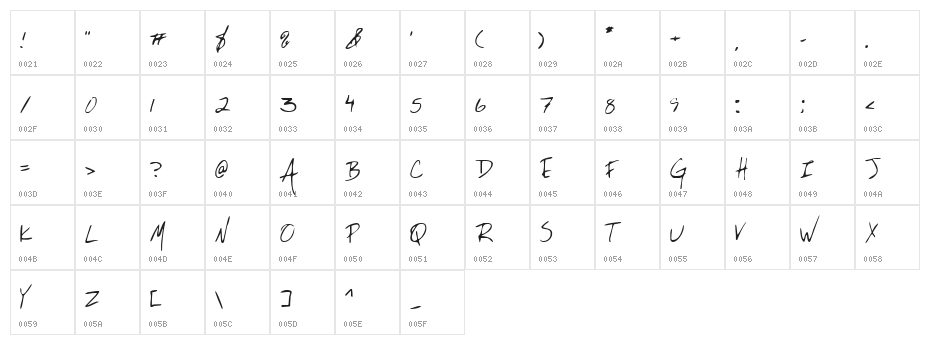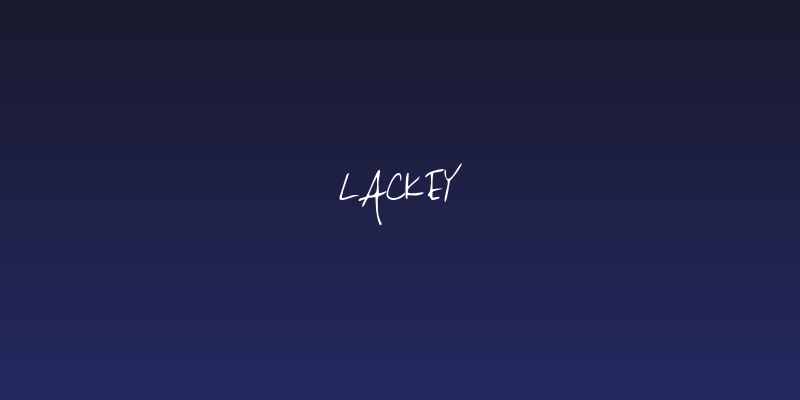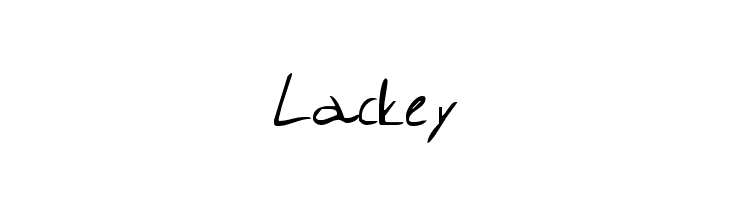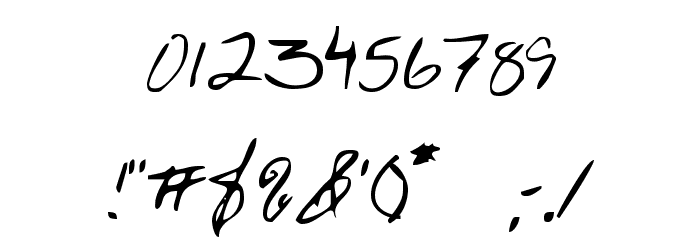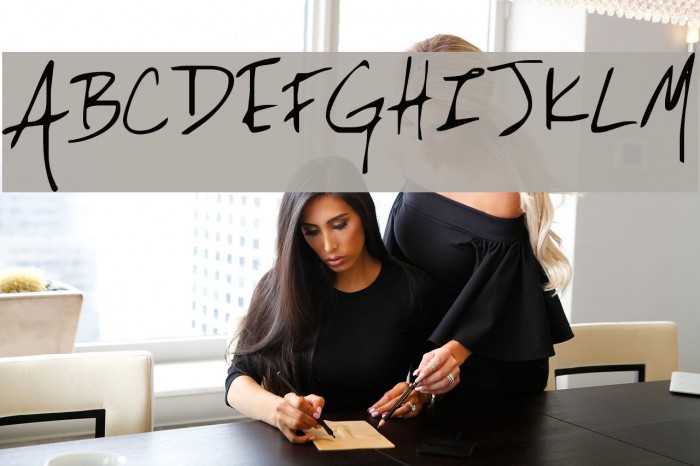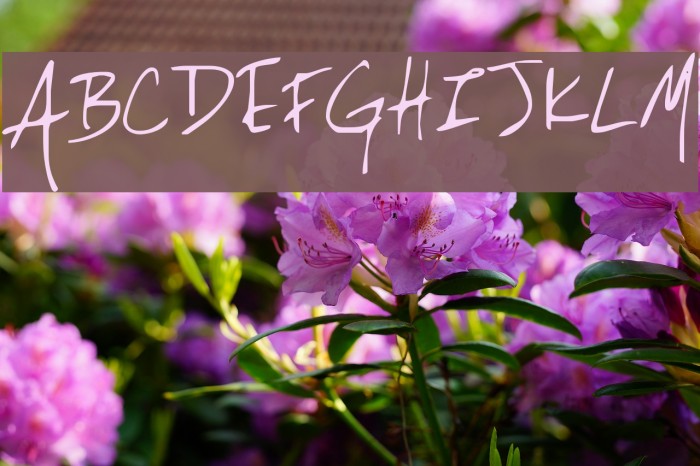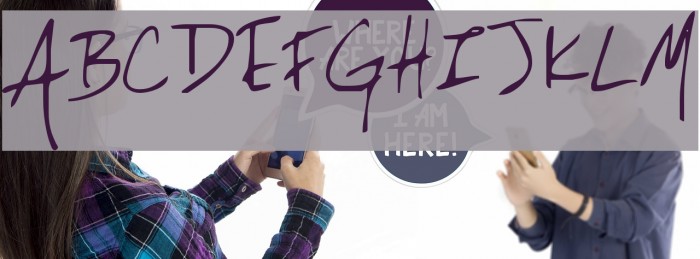
Lackey Font
Lackey Description
This font exhibits a dynamic and expressive handwritten style, characterized by its fluid and slightly irregular strokes. The uppercase letters are bold and prominent, with a playful yet sophisticated flair. The lowercase letters maintain a consistent flow, enhancing the font's overall legibility despite its artistic nature. Numbers and special characters are crafted with the same attention to detail, ensuring a cohesive appearance across all elements. The font's unique personality makes it suitable for creative projects that require a personal touch.
| Use Case | Logos, Headlines, Creative projects |
| Proposed Projects | Ideal for greeting cards, invitations, personal branding, and artistic posters. |